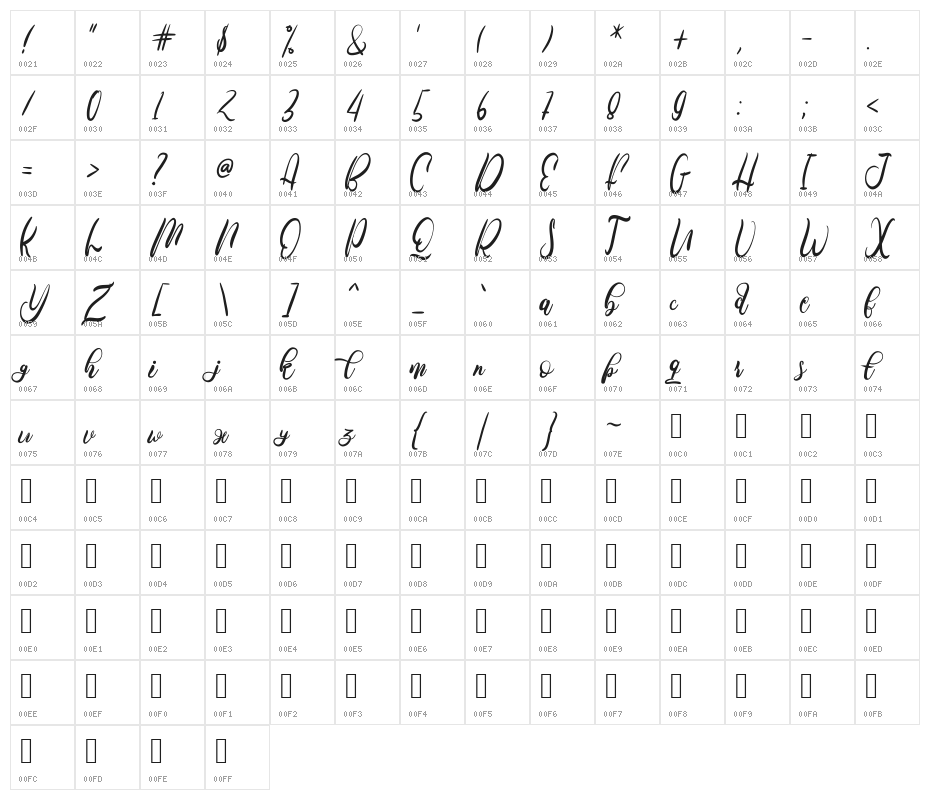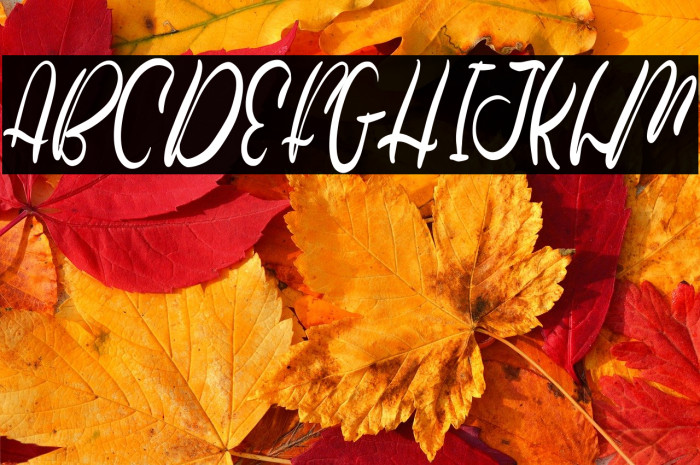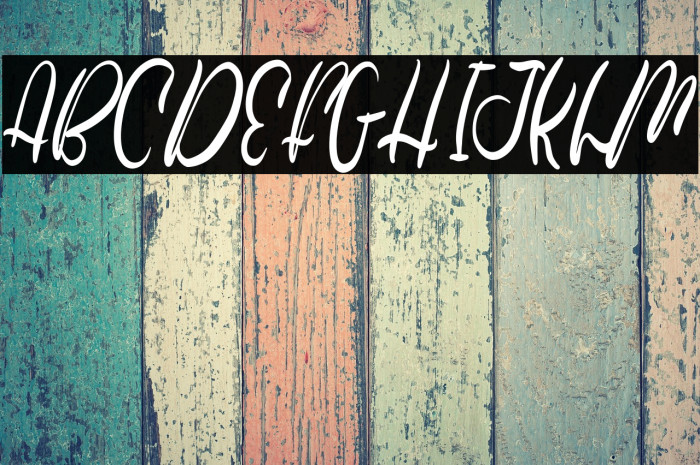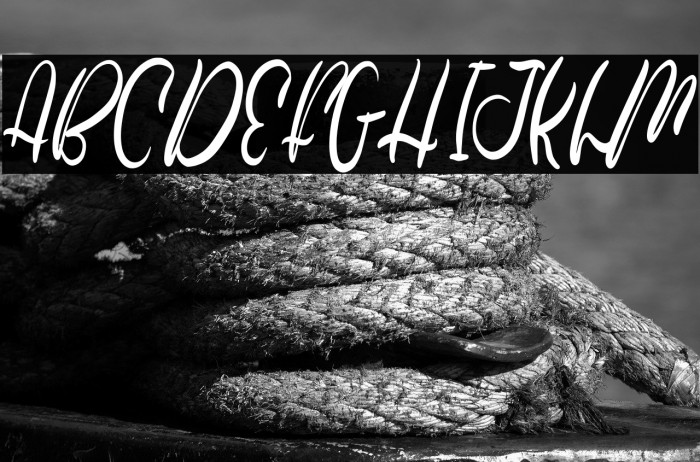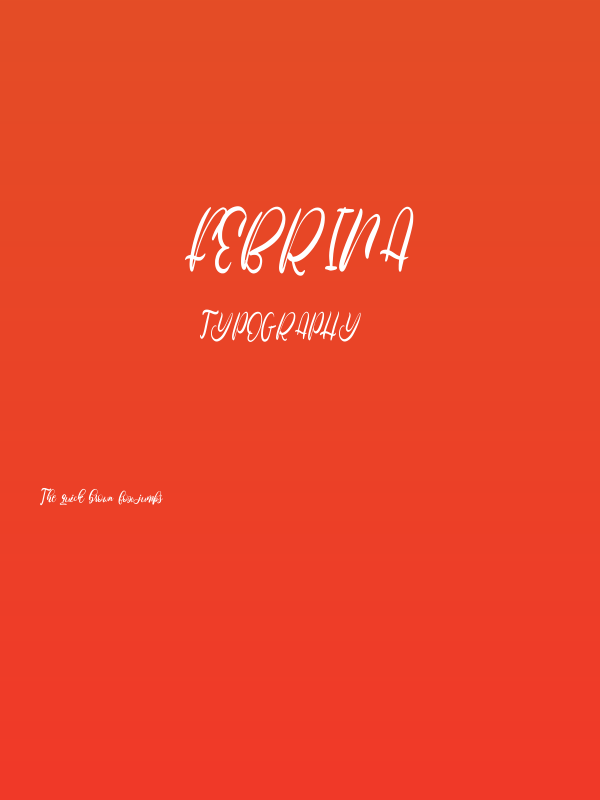
Febrina Font
Febrina Description
This font features a lively and expressive script style, characterized by its fluid and dynamic strokes. The letters are interconnected, giving a sense of continuity and flow. The uppercase letters are bold and prominent, while the lowercase letters maintain a consistent rhythm. The numerals are stylish and align well with the overall script theme. Special characters are creatively integrated, enhancing the font's decorative appeal. This font exudes a sense of elegance and creativity, making it suitable for artistic and expressive design projects.
| Use Case | Logos, Invitations, Artistic designs |
| Proposed Projects | Ideal for wedding invitations, greeting cards, branding, and artistic posters. |